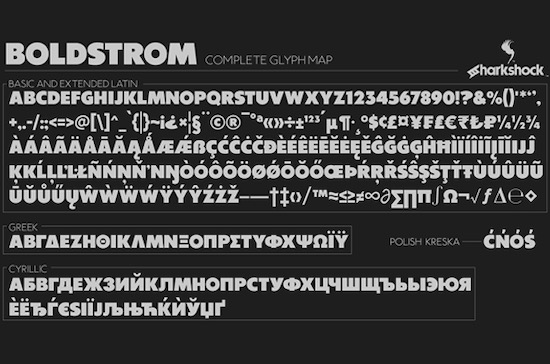
Boldstrom Sans font is an extra-loud bold modern typeface, the rounded font has the chunky lettered. It was released by Sharkshock and is very perfect for a range of display purposes. Really, it’s a simple font but significant.
Boldstrom Display Sans Font